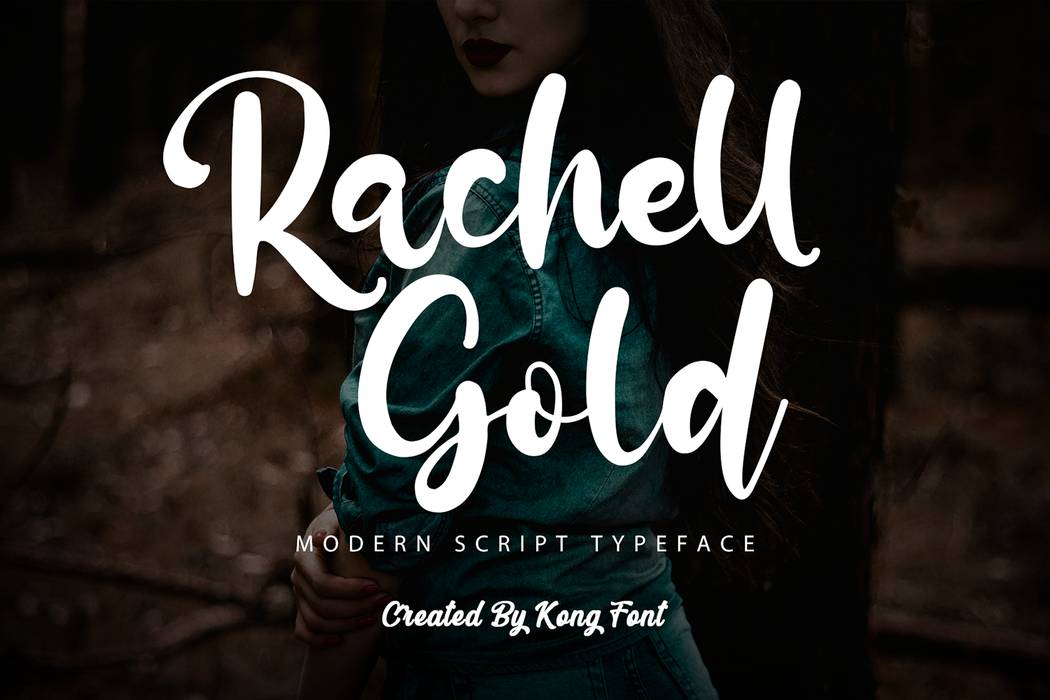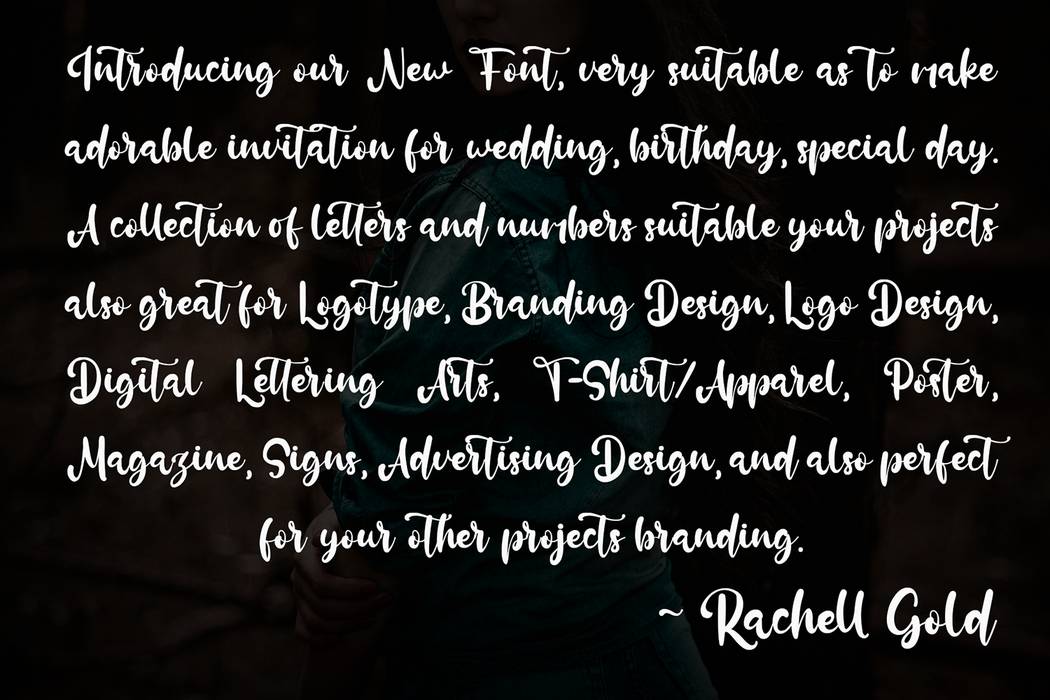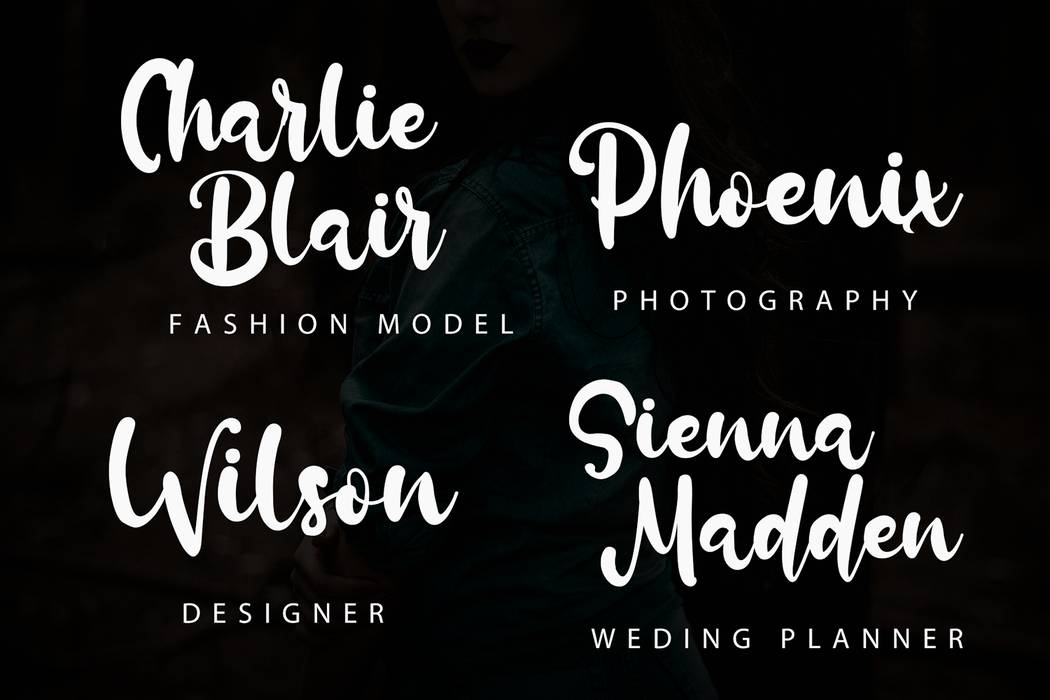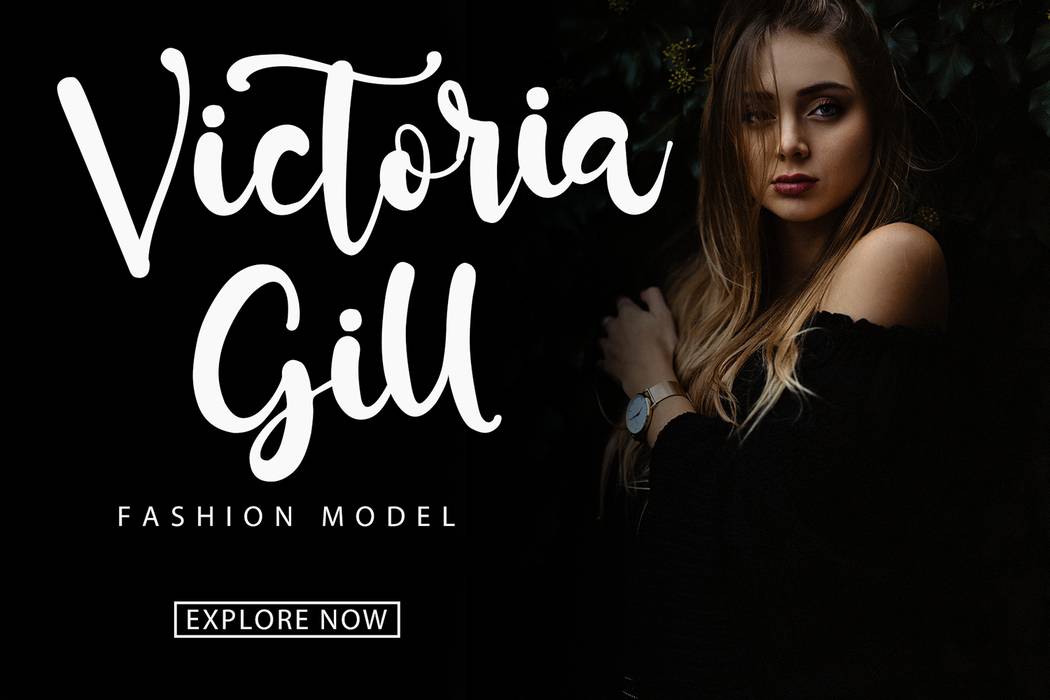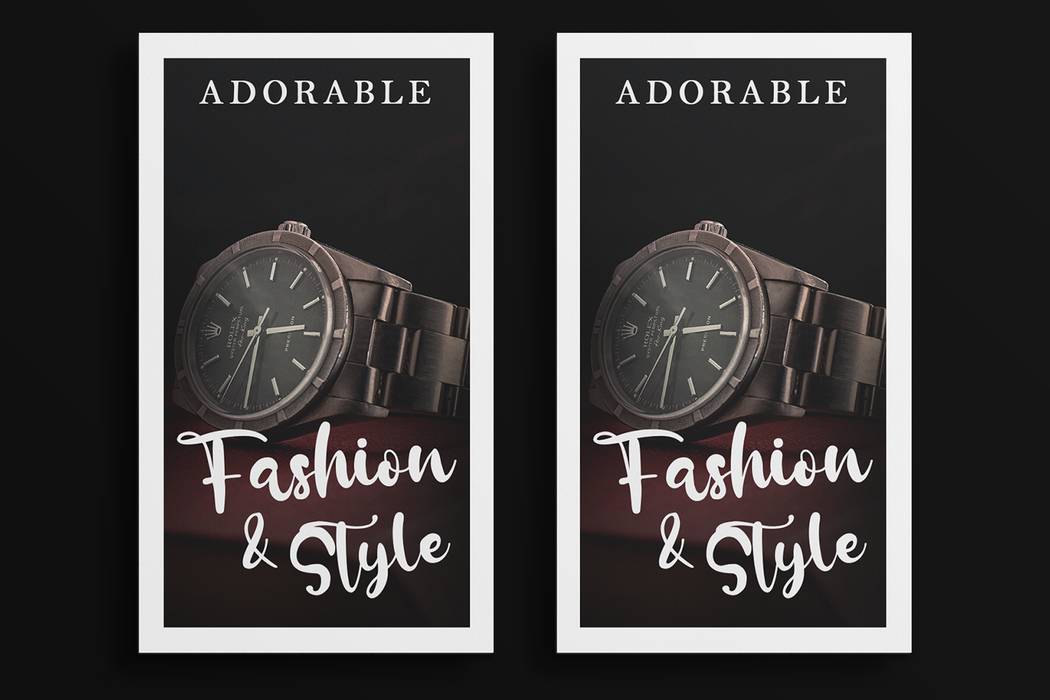
Rachell Gold is a lively and elegant script font with a modern handwritten style, featuring smooth, flowing letterforms with moderate contrast and playful swashes. Its slightly condensed width and balanced x-height make it perfect for adding a personal and sophisticated touch to branding, invitations, and creative headlines. This font shines in designs that seek a warm, approachable, yet stylish aesthetic.
Rachell Gold Font
About Rachell Gold Font